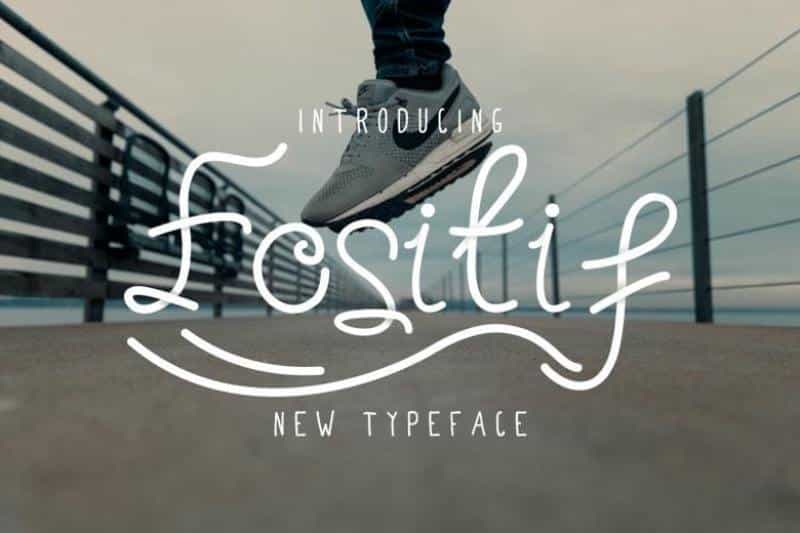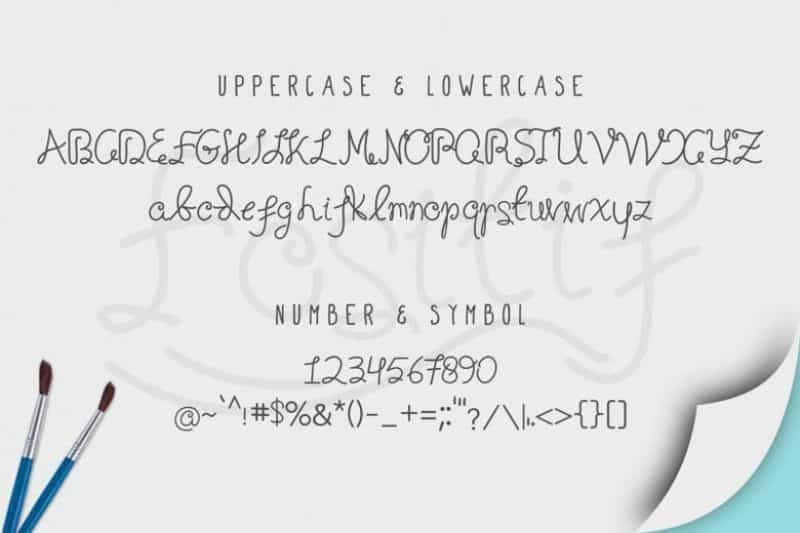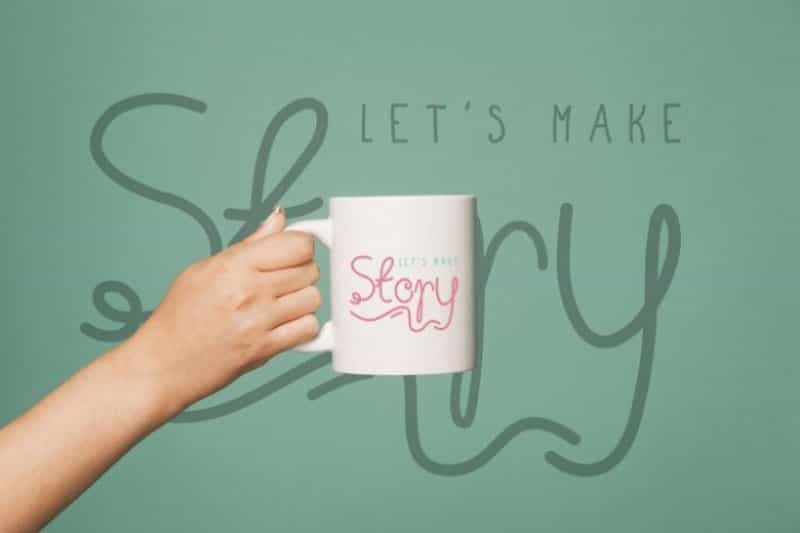
Fositif Fancy Happy Font
You dont misread it, it’s FOSITIF! It is a Fancy – Happy Font. I want to put in the spirit, happiness, fairness, equality and live a full life. This font is suitable for watermark, quote, poster, invitation and poem but it will also work if you use it as part of branding or album cover etc.